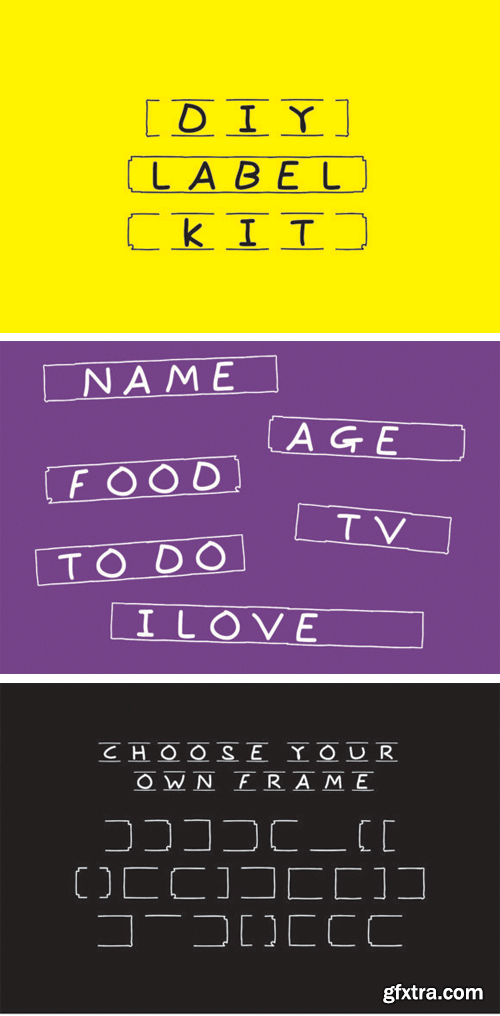
Label Kit Font
Do you love to organize and need a label quick? Want to make it look like you did it yourself (we’re not saying your lazy)? Choose from 5 different frame styles, write your message and print, Easy!